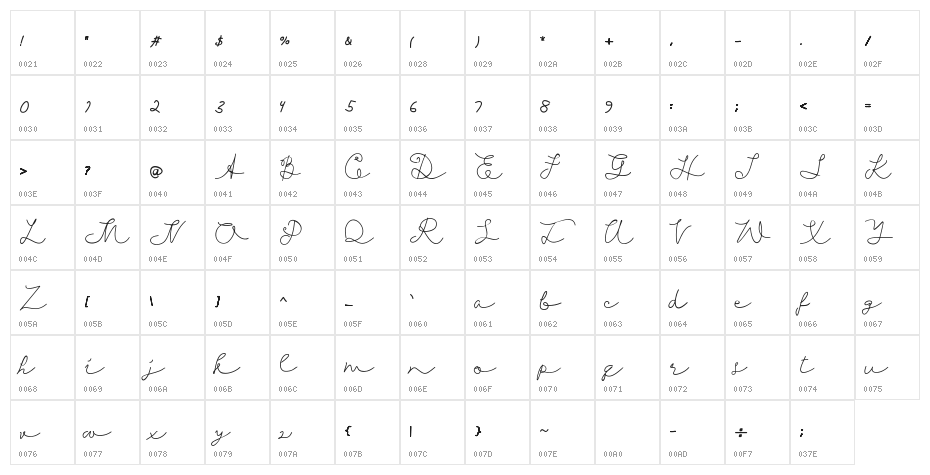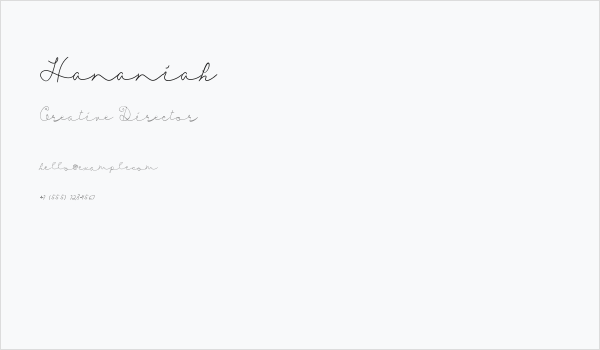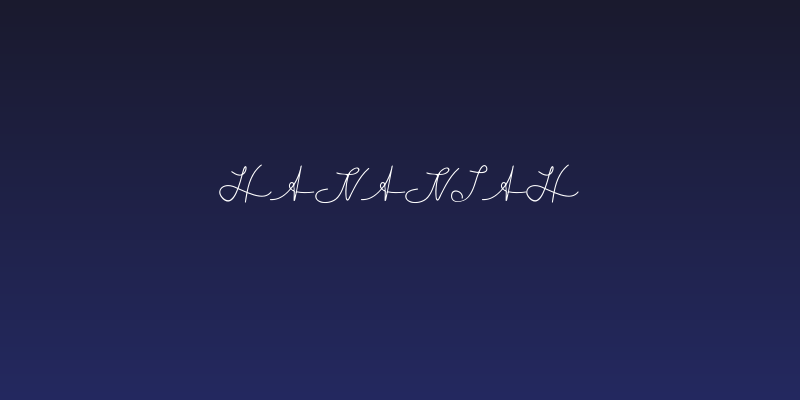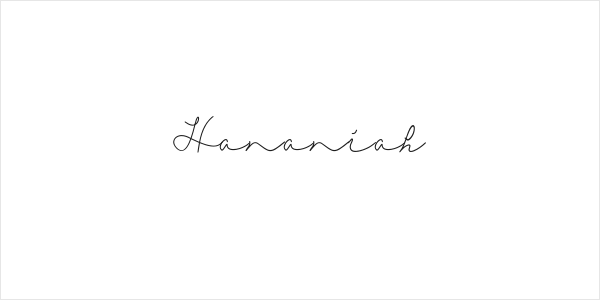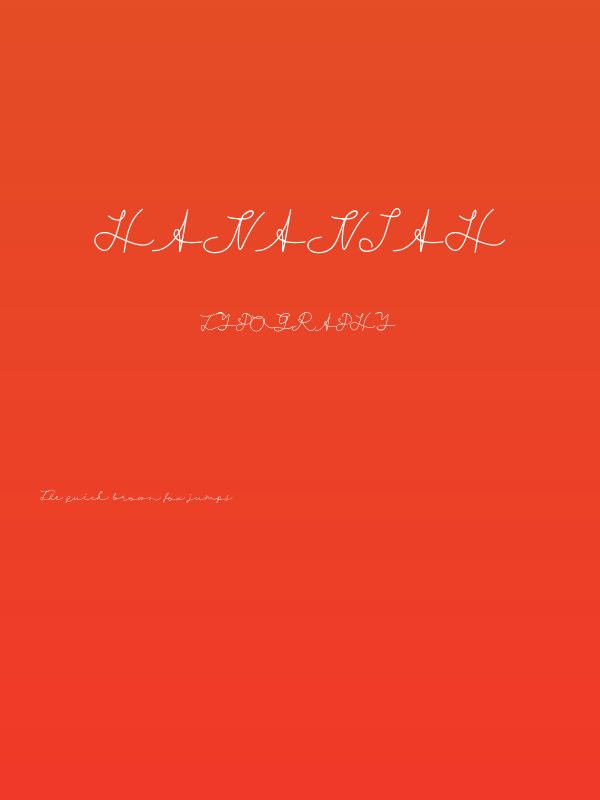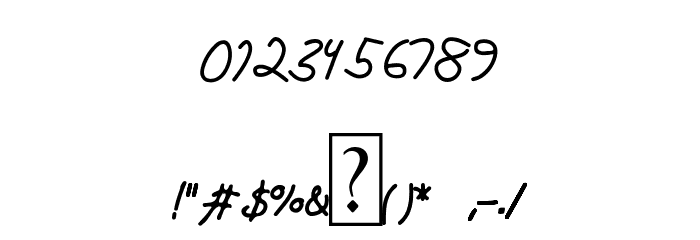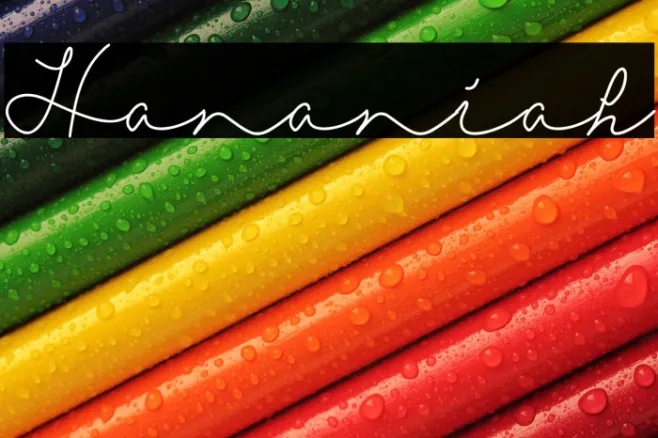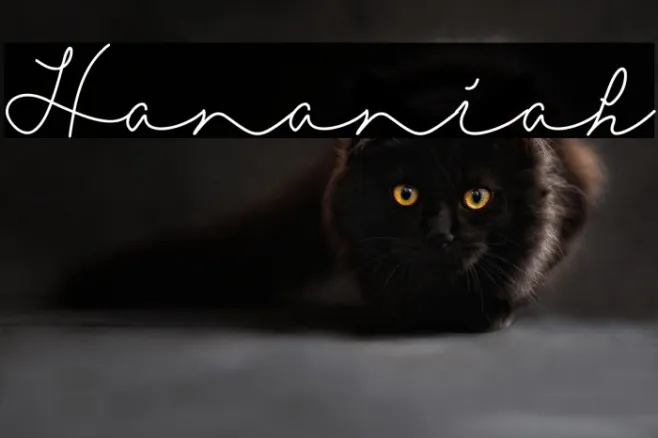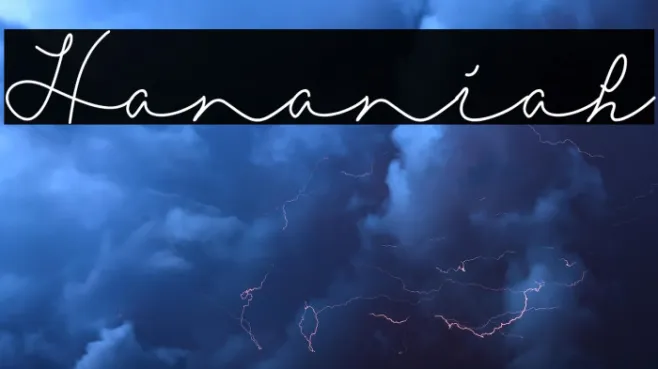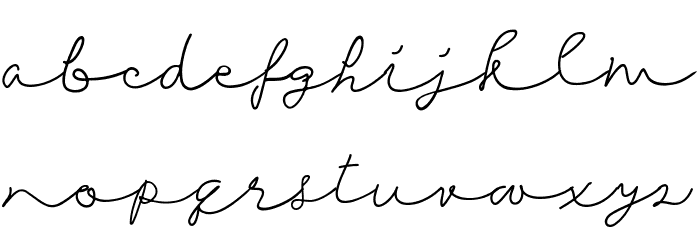
Hananiah Font
Hananiah Description
This font features an elegant and flowing script style, characterized by its smooth, continuous strokes and delicate curves. The uppercase letters are ornate and slightly larger than the lowercase, which are more understated yet maintain the same fluidity. The numerals are clear and legible, with a slight slant that complements the overall script style. Special characters are integrated seamlessly, maintaining the font's cohesive look. This font exudes a sense of sophistication and grace, making it ideal for formal invitations, branding, and other projects that require a touch of elegance.
| Overall Style | Elegant, Sophisticated |
| Use Case | Invitations, Branding, Stationery |
| Proposed Projects | Ideal for wedding invitations, elegant branding, personal stationery, and upscale packaging. |